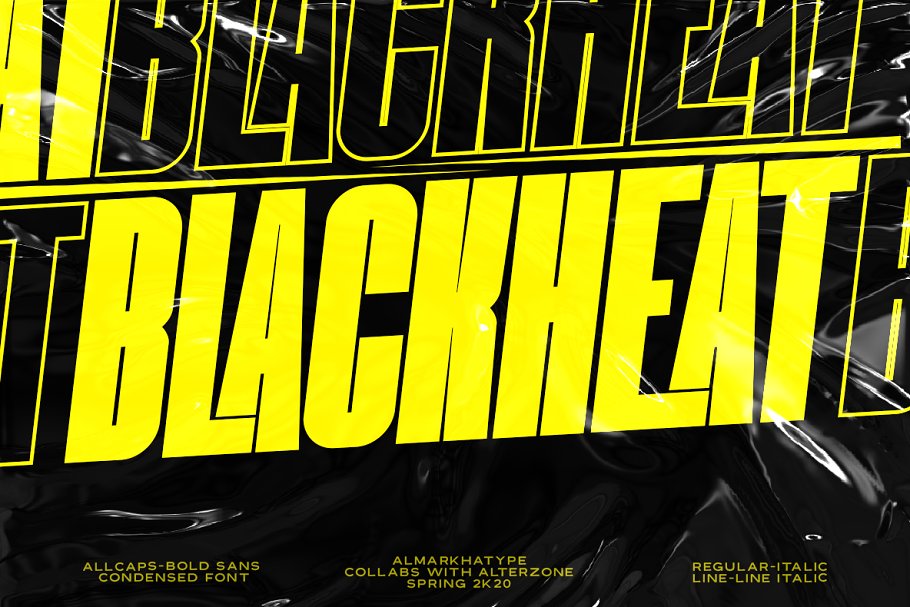
Hello Everyone, introduce our new product Blackheat – Bold Sans Condensed with 4 style inspired by the title of the sports poster,We make it very energetically, taking into account the thickness and density of each gliph, along with a ligature that makes this font look unique.